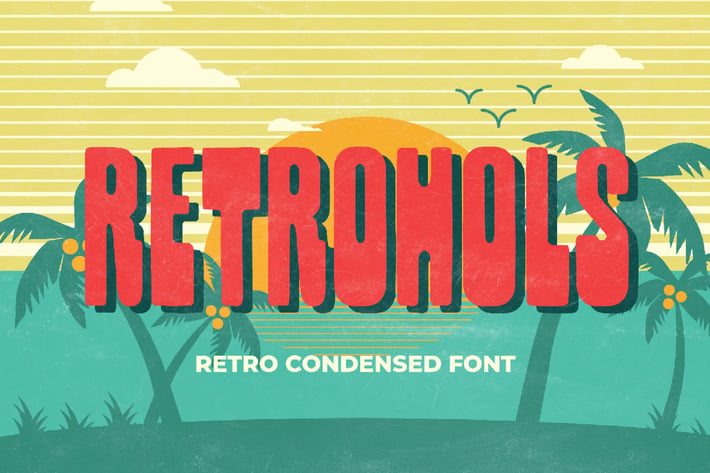
Retrohols - Retro Condensed Font
Retrohols is a Fancy and Retro Sans full of charm. It will take any DIY-project to the next level!
Retrohols is perfect for Craft , product packaging, product designs, label, branding projects, logo, vintage
social media posts, advertisements, watermark, invitation, stationery and any projects